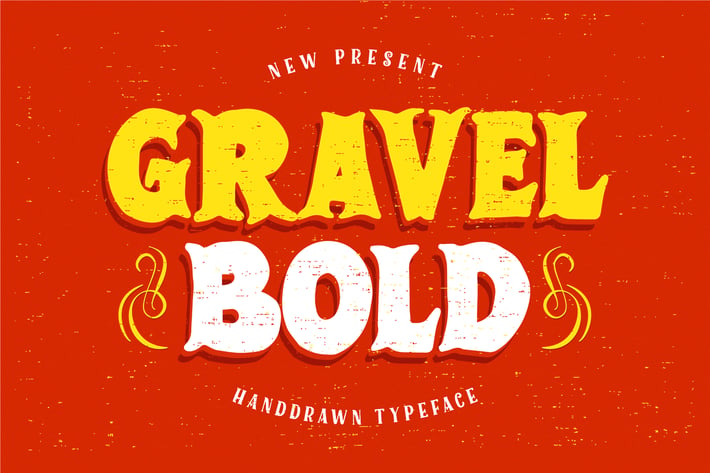
GravelBold Typeface
New Present !
GravelBold Typeface
Meets GravelBold Typeface crafted handwriting on a display typefaces. It generates a lot more fun, more trendy and more vibrant. Itβs Versatile, Fun, Cute and Beauty feel that you get in GravelBold Typeface.